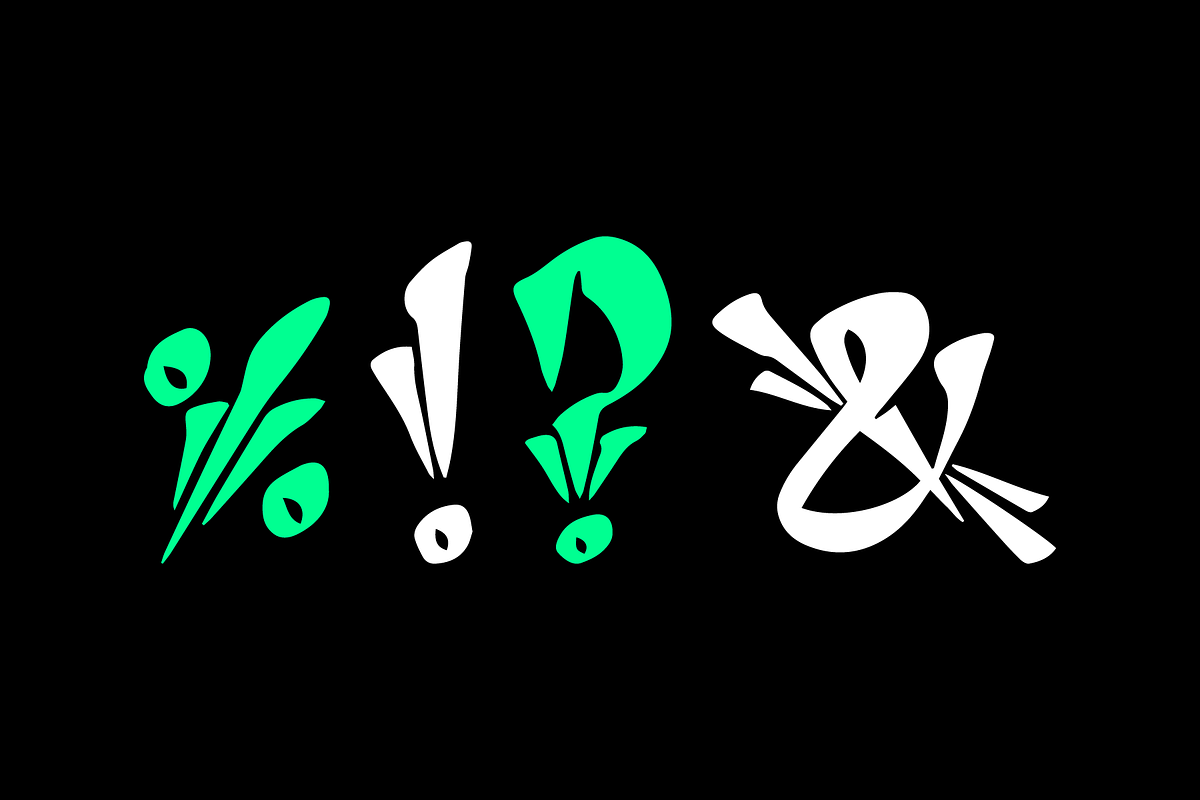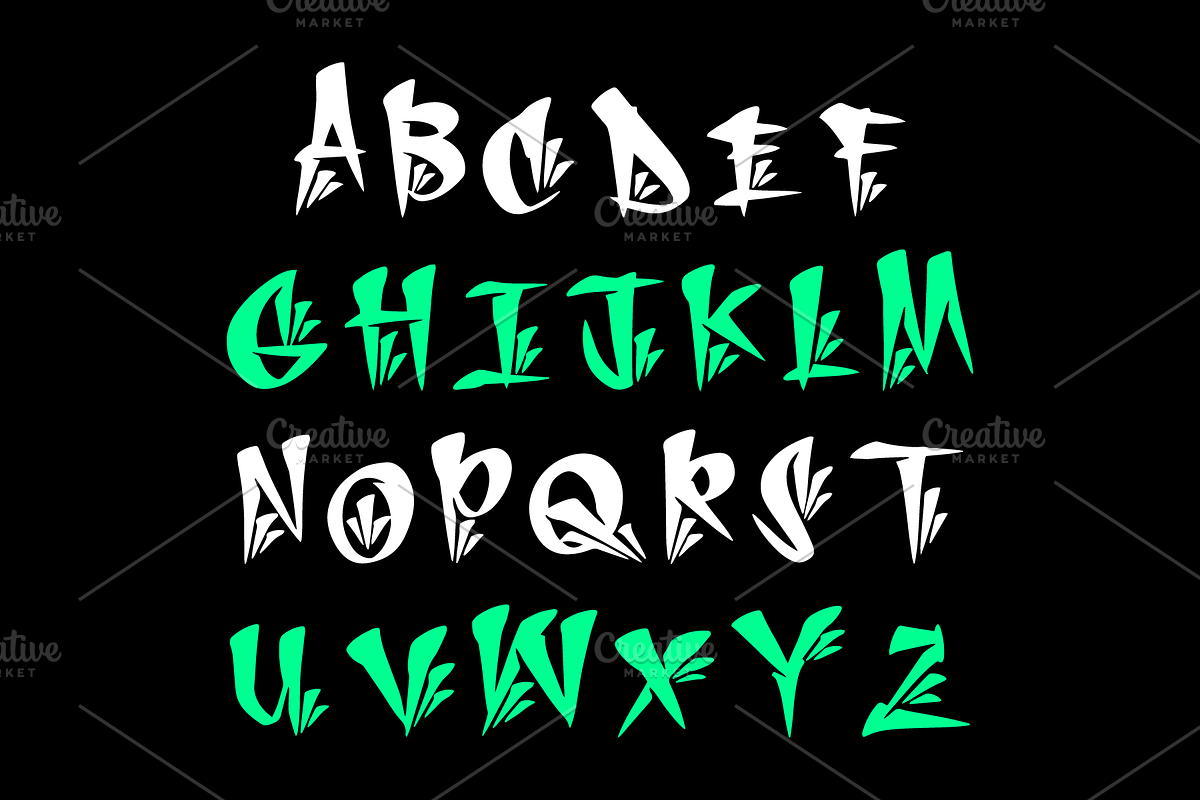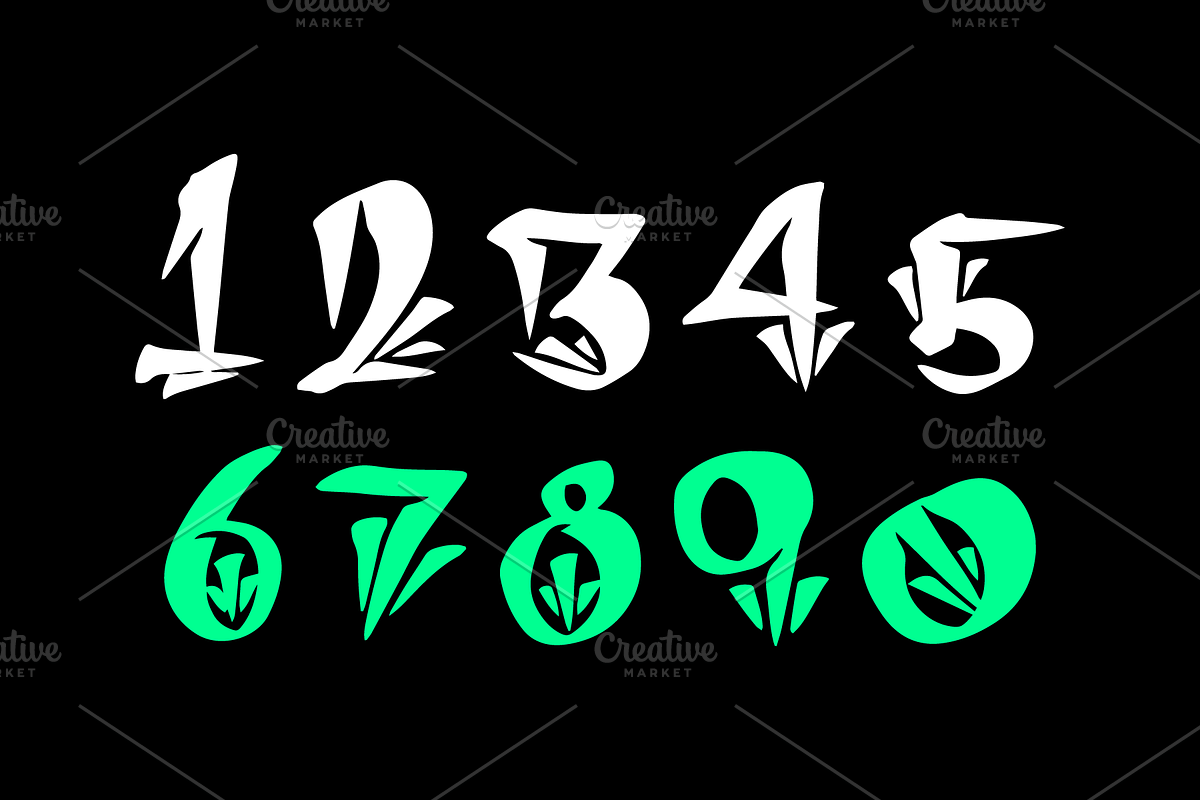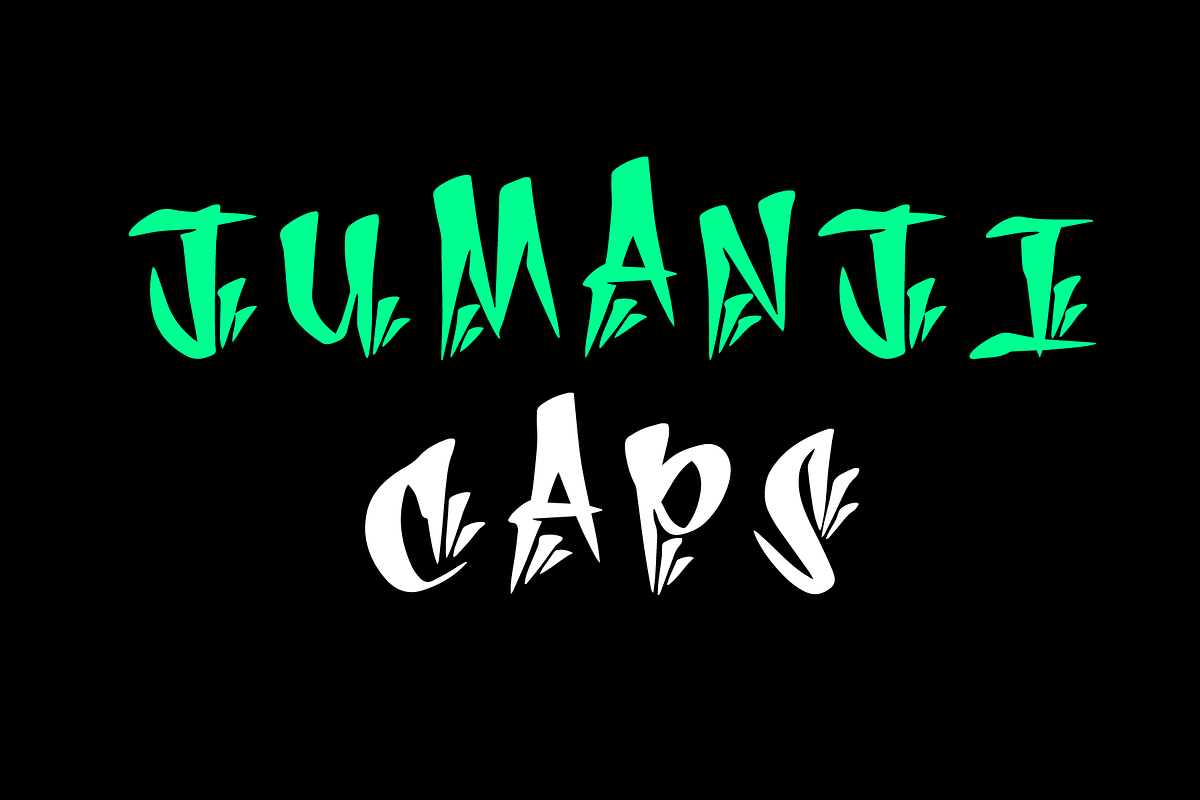
JUMANJI CAPS
JUMANJI CAPS is an .otf all Caps Font set of 26 original characters A-Z plus BONUS numbers 0-9 and BONUS special characters !%?& This font was designed in Los Angeles, California.